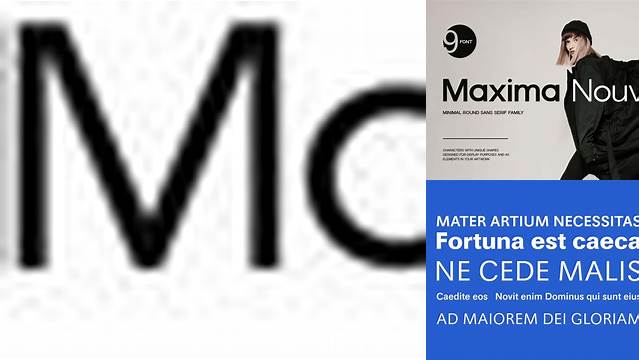
What is Maxima Nuova?
Maxima Nuova is a stunning and versatile font that has become a favorite among designers worldwide. Its clean lines and elegant curves make it perfect for a wide range of projects, from branding and advertising to editorial design and web typography. The Maxima Nuova font family boasts a variety of weights and styles, giving you the flexibility to create everything from bold headlines to delicate body text. Understanding the nuances of this font will help you appreciate its value and use it effectively in your projects. This introduction will set the stage for exploring the various aspects of this typeface and understanding why it’s so sought after in the design community. By the end of this section, you'll have a solid understanding of what makes Maxima Nuova special and why it's worth adding to your font library. Whether you're a seasoned designer or just starting out, Maxima Nuova is a font that can elevate your work and give it a professional touch. Its versatility and elegance make it a timeless choice for any project, ensuring that your designs look polished and sophisticated. So, let's get started and discover the magic of Maxima Nuova together!
History and Evolution of Maxima Nuova
To truly appreciate the Maxima Nuova font, it’s helpful to understand its origins. Maxima Nuova is a modern take on classic sans-serif typefaces, drawing inspiration from fonts like Helvetica and Univers. This history gives Maxima Nuova a timeless quality while still feeling fresh and contemporary. The evolution of Maxima Nuova has been a journey of refining and perfecting a design to meet the needs of modern designers. Understanding this evolution allows you to see how the font has become what it is today – a versatile and reliable choice for a variety of design projects. The designers behind Maxima Nuova meticulously crafted each glyph, ensuring that the font is both beautiful and functional. This attention to detail is what sets Maxima Nuova apart from other sans-serif fonts, making it a favorite among professionals. By exploring the history and evolution of Maxima Nuova, you’ll gain a deeper appreciation for its design and understand why it’s such a valuable asset in any designer's toolkit. This knowledge will also help you use the font more effectively, as you’ll understand the nuances and subtle details that make it unique. So, let’s delve into the past and discover the story behind this remarkable typeface.
Key Features and Characteristics of Maxima Nuova
What makes Maxima Nuova stand out? It’s all about its key features! This font is known for its clean, geometric shapes, excellent legibility, and a wide range of weights. Whether you need a light and airy font or a bold and commanding one, Maxima Nuova has you covered. These characteristics make it incredibly versatile and suitable for various design applications. The design of Maxima Nuova is carefully crafted to ensure readability in both print and digital formats, making it an excellent choice for everything from website body text to printed brochures. The geometric shapes give it a modern and sophisticated look, while the subtle variations in weight and style provide ample opportunity for creative expression. Understanding these key features will help you leverage the full potential of Maxima Nuova in your projects. You’ll be able to choose the right weight and style for your specific needs, ensuring that your designs are both visually appealing and highly functional. By mastering the characteristics of Maxima Nuova, you’ll be well-equipped to create stunning designs that stand out from the crowd. So, let's explore these features in detail and see how they can enhance your creative work.
Design Applications and Use Cases for Maxima Nuova
Where can you use Maxima Nuova? The possibilities are endless! This font shines in branding, editorial design, web design, and more. Think logos, magazines, websites, and even mobile apps. Its versatility makes it a go-to choice for designers working on a variety of projects. In branding, Maxima Nuova can help create a strong and memorable visual identity. Its clean lines and modern aesthetic make it perfect for logos, business cards, and other marketing materials. In editorial design, Maxima Nuova provides excellent readability, making it ideal for body text and headlines in magazines, newspapers, and books. For web design, Maxima Nuova’s legibility on screens ensures a pleasant reading experience for users. Its adaptability also makes it suitable for mobile app interfaces, where clarity and readability are paramount. Understanding these design applications will help you see how Maxima Nuova can be integrated into your own projects. Whether you’re working on a new logo, designing a website, or creating a print layout, Maxima Nuova can be a valuable asset. By exploring these use cases, you’ll gain inspiration and learn how to leverage the full potential of Maxima Nuova in your creative endeavors. So, let's dive into the practical applications of this versatile font and discover how it can elevate your design work.